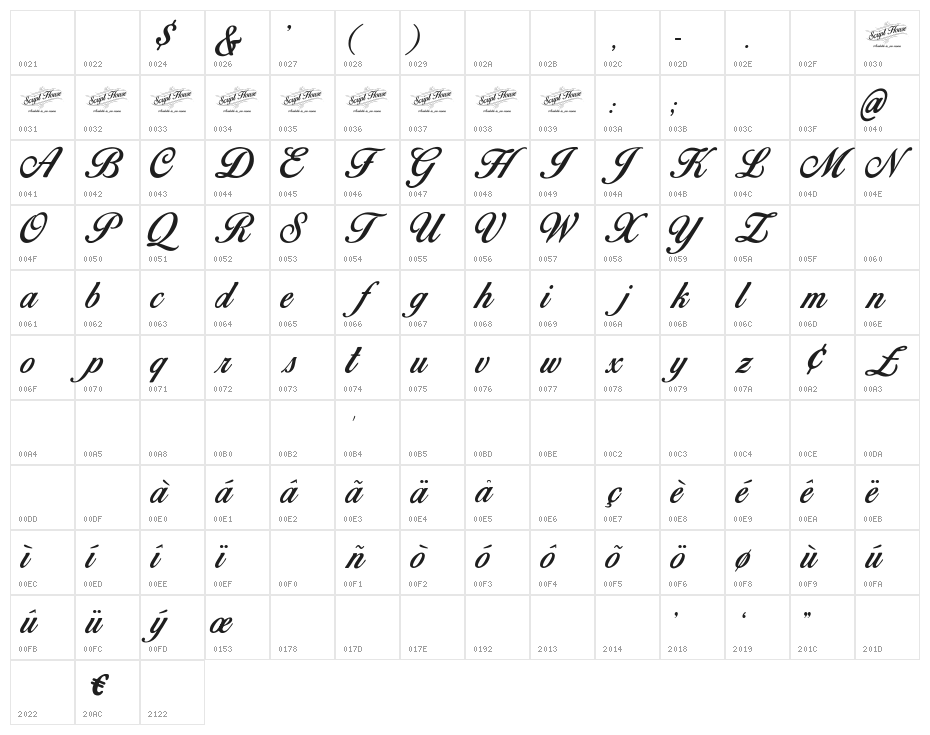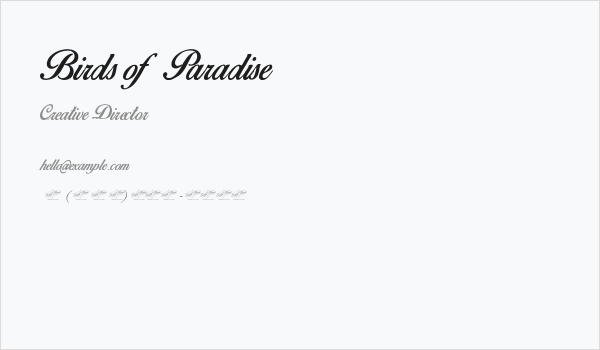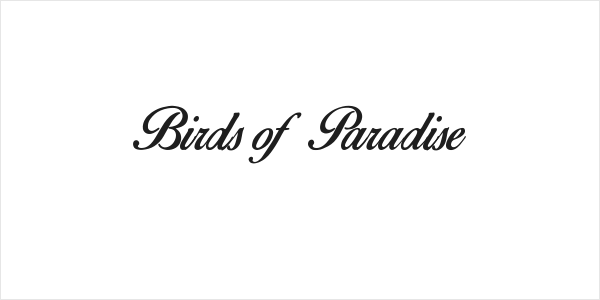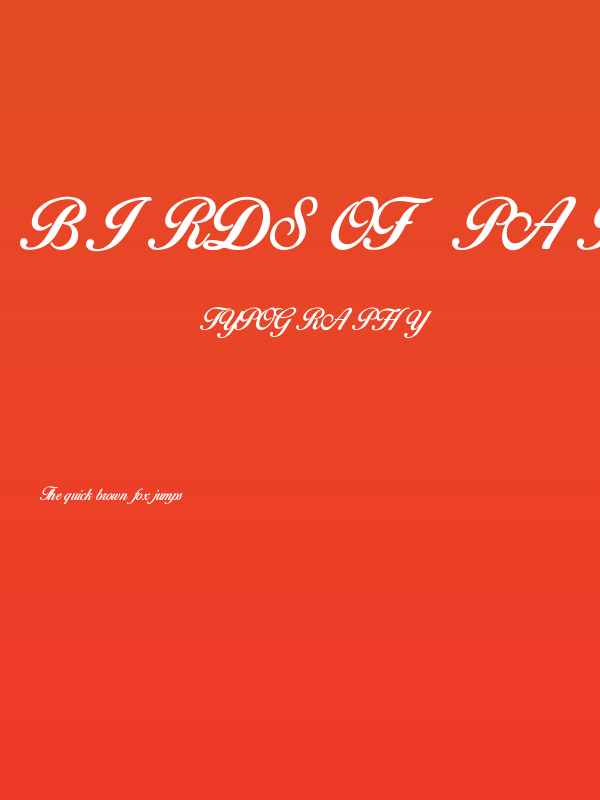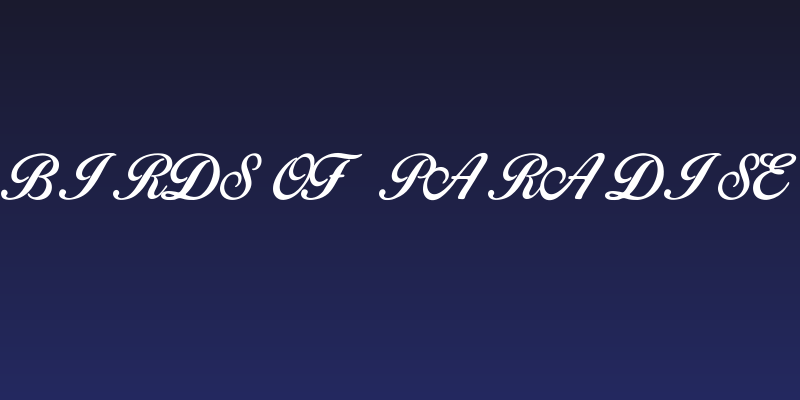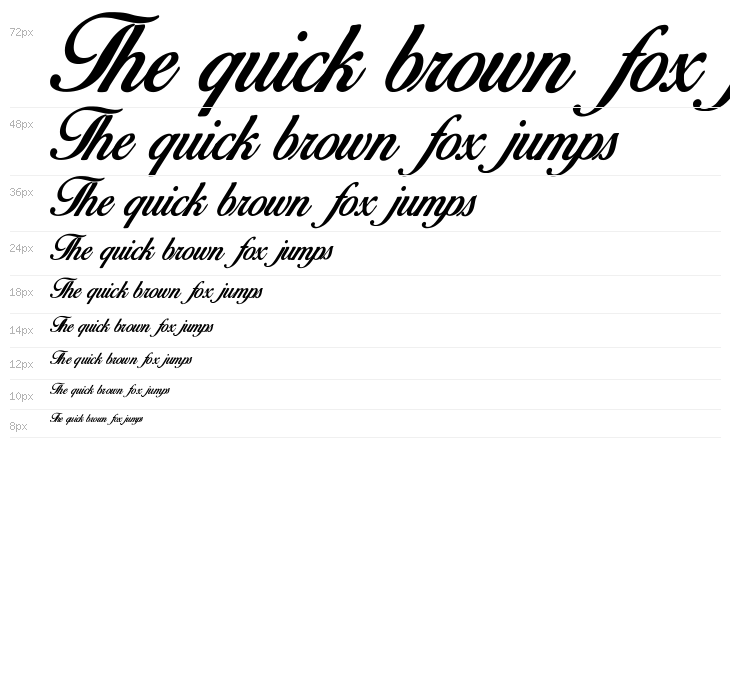
Birds of Paradise Font
Birds of Paradise Description
This font exudes elegance and sophistication with its flowing, cursive style. The uppercase letters are gracefully connected, featuring delicate loops and swirls that add a touch of refinement. The lowercase letters maintain a consistent flow, with smooth curves and a slight slant that enhances readability. The numerals and special characters are designed to complement the overall aesthetic, ensuring a cohesive appearance across all text. This font is ideal for projects that require a touch of class and elegance, such as wedding invitations, formal event programs, or luxury brand logos.
| Use Case | Logos, Invitations, Formal Text |
| Proposed Projects | Ideal for wedding invitations, luxury branding, formal event materials, and elegant stationery. |